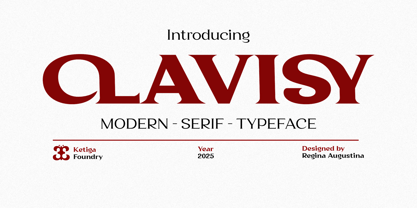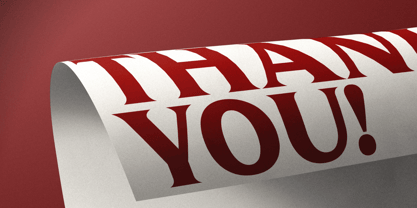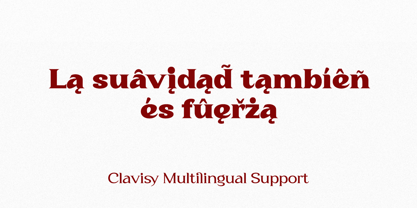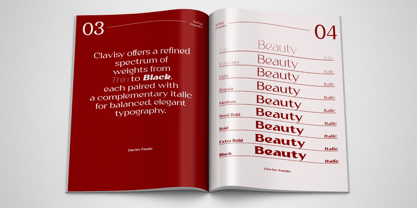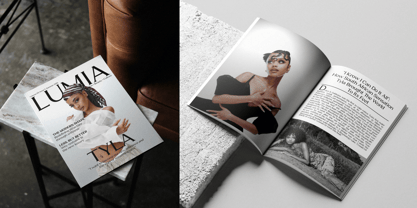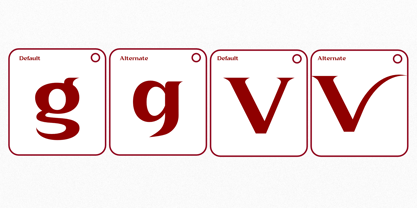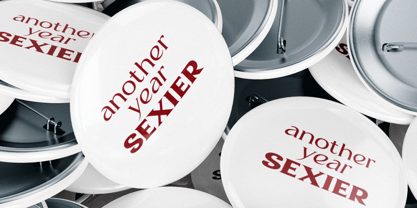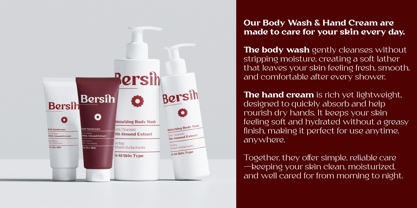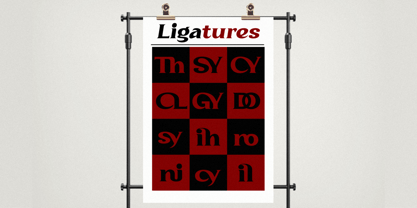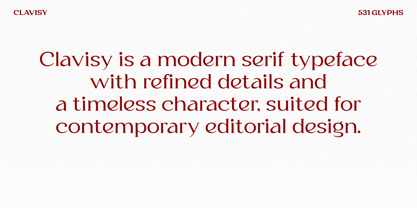
Clavisy
by Ketiga Foundry
The Clavisy Font Family was designed by Reginaa Augustina and published by Ketiga Foundry. Clavisy contains 18 styles and family package options. More about this family
Clavisy is a modern serif typeface crafted for brands and creatives seeking refinement without sacrificing personality. Its sleek curves, sharp details, and balanced proportions create a timeless aesthetic that exudes both luxury and contemporary flair. Designed with versatility in mind, Clavisy excels in high-end branding, fashion editorials, packaging, magazines, social media graphics, and logos that require a polished yet distinctive voice. The expressive italics provide a stylish contrast, enhancing headlines, quotes, and display typography with effortless elegance. Each letter is meticulously shaped to ensure clarity, sophistication, and a strong visual rhythm—making Clavisy an exceptional choice for designers aiming to make their work stand out with grace. If you seek a serif typeface that harmonizes beauty, modernity, and professional usability, Clavisy is here to inspire your creative journey.
Designers: Reginaa Augustina
Foundry: Ketiga Foundry
Clavisy